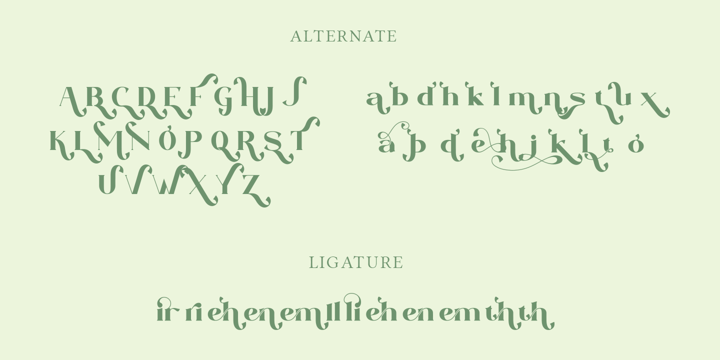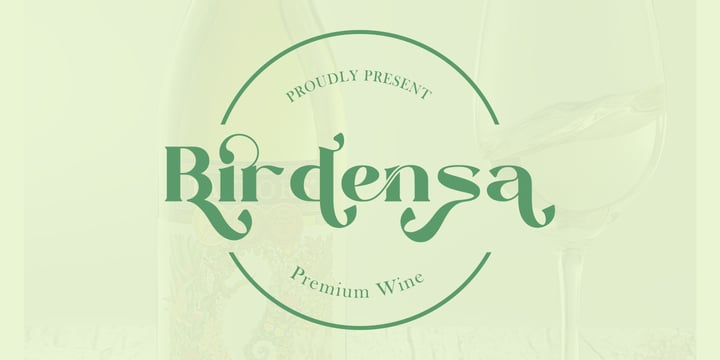
Shentholla
by Liartgraphic
The Shentholla Font Family was designed by Ali Sifak Muftari and published by Liartgraphic. Shentholla contains 1 styles. More about this family
Meet our newest product, we call this product Shentholla font. Shentholla font are sans serif typeface font
Whit a uniqe touch and assertive. Shentholla font is very nice to use on:
fashion magazine, logos, ,and photography, landing page, fliyer,
What’s includes
- mutilngual support
- alternate
- ligature
Designers: Ali Sifak Muftari
Foundry: Liartgraphic